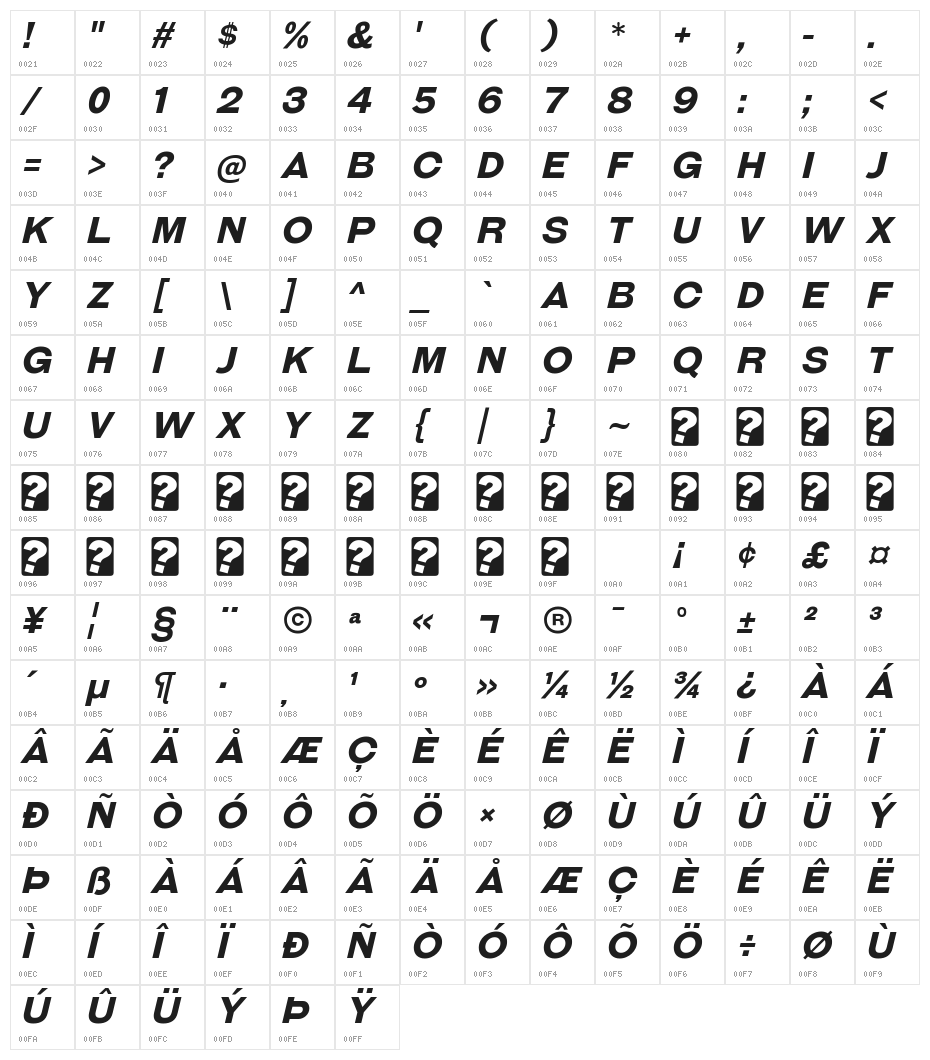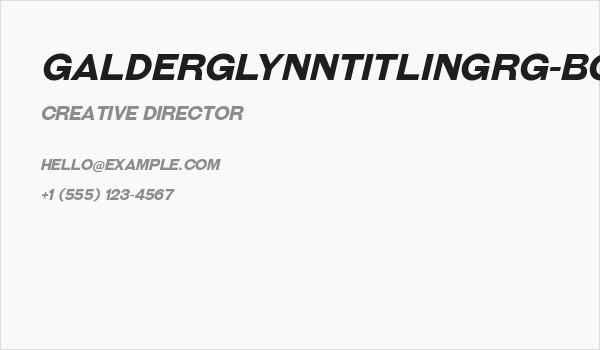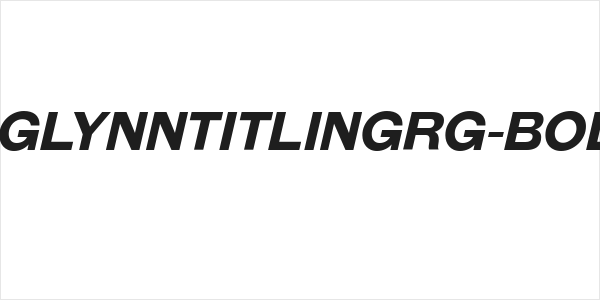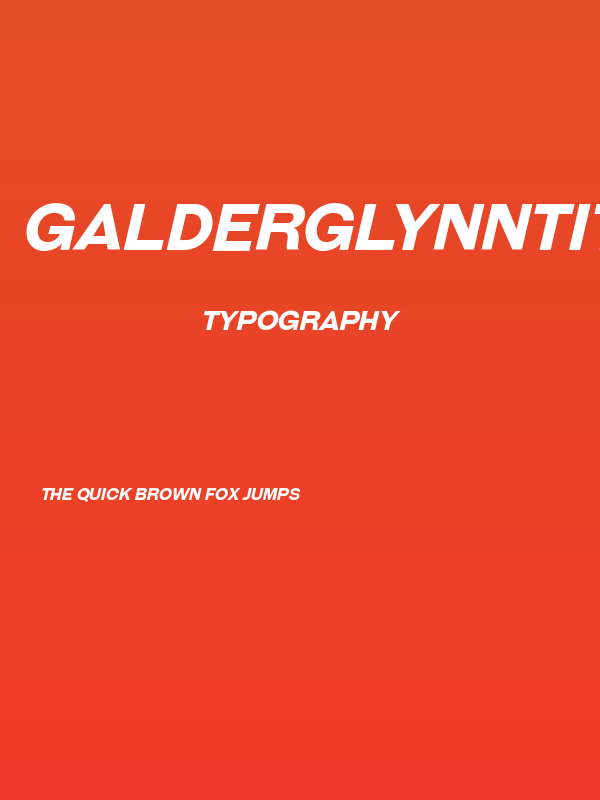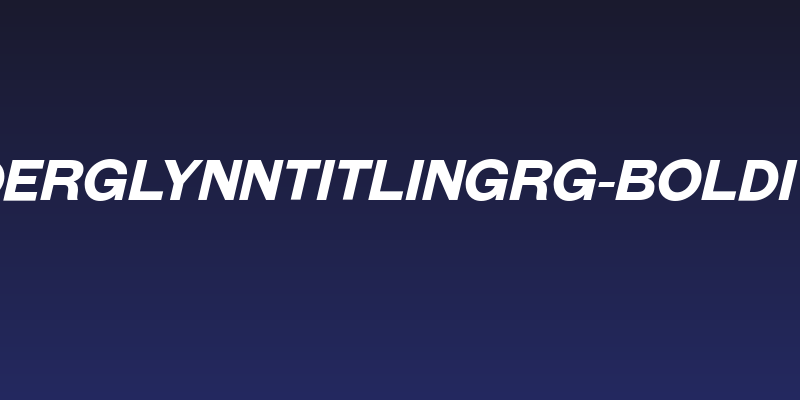
GalderglynnTitlingRg-BoldItalic Font
GalderglynnTitlingRg-BoldItalic Description
This font features a bold and italicized style, characterized by its strong presence and dynamic slant. The uppercase letters are prominent and assertive, making a statement with their thick strokes and angled posture. The numerals and special characters maintain the same boldness, ensuring consistency throughout. The italic angle adds a sense of motion and modernity, suitable for attention-grabbing designs. The overall appearance is sleek and contemporary, with a focus on readability and impact.
| Proposed Projects | Ideal for headlines, branding, advertising, and any project requiring a strong visual impact. |